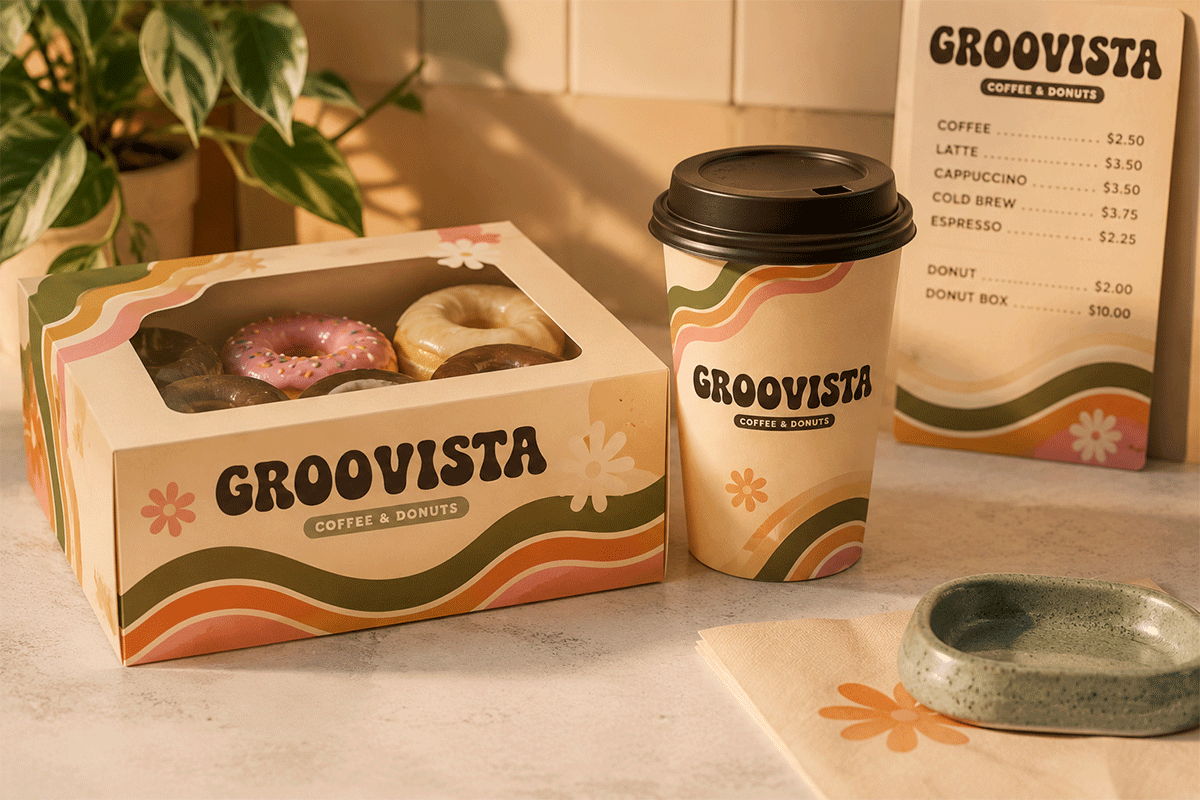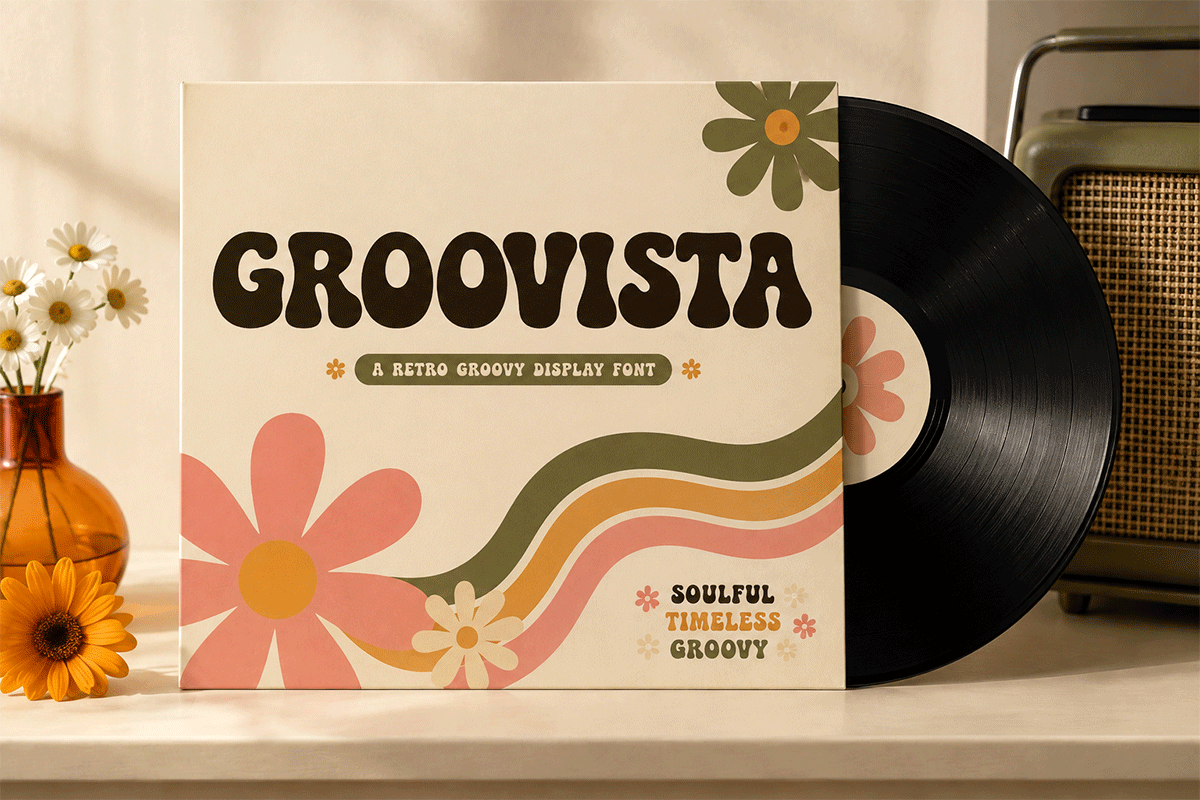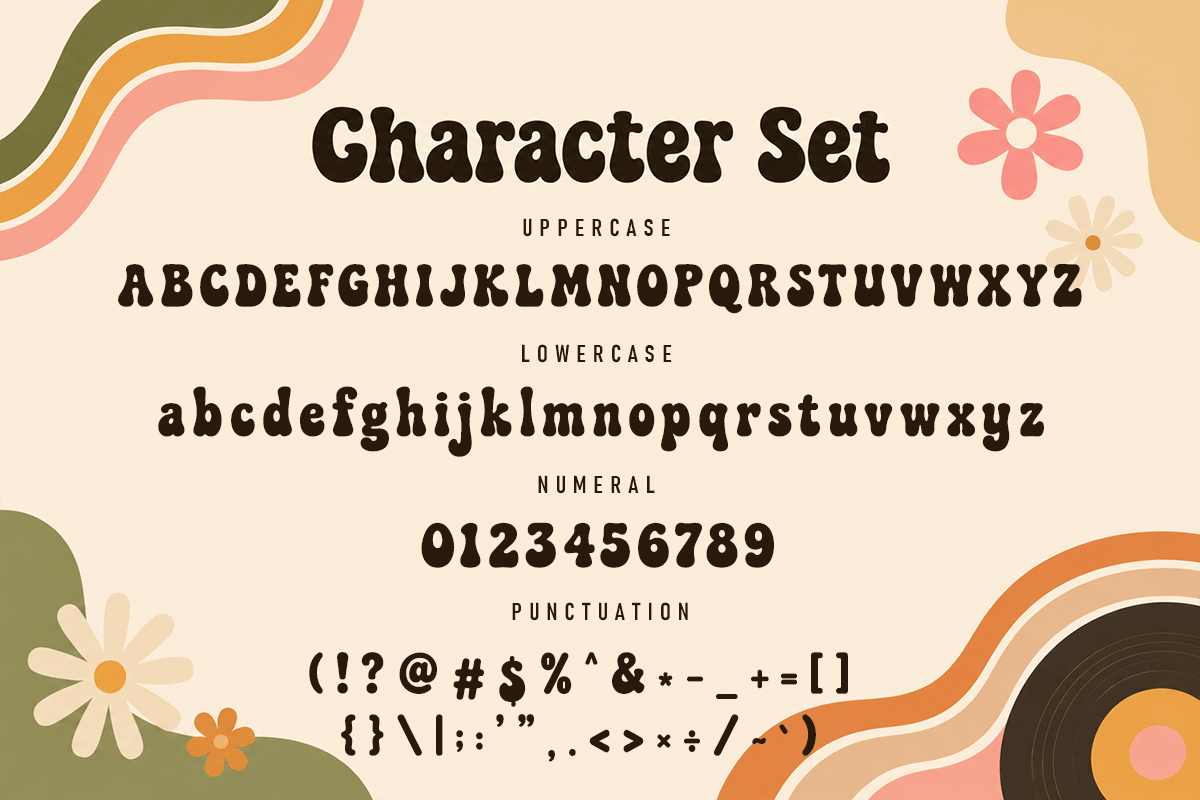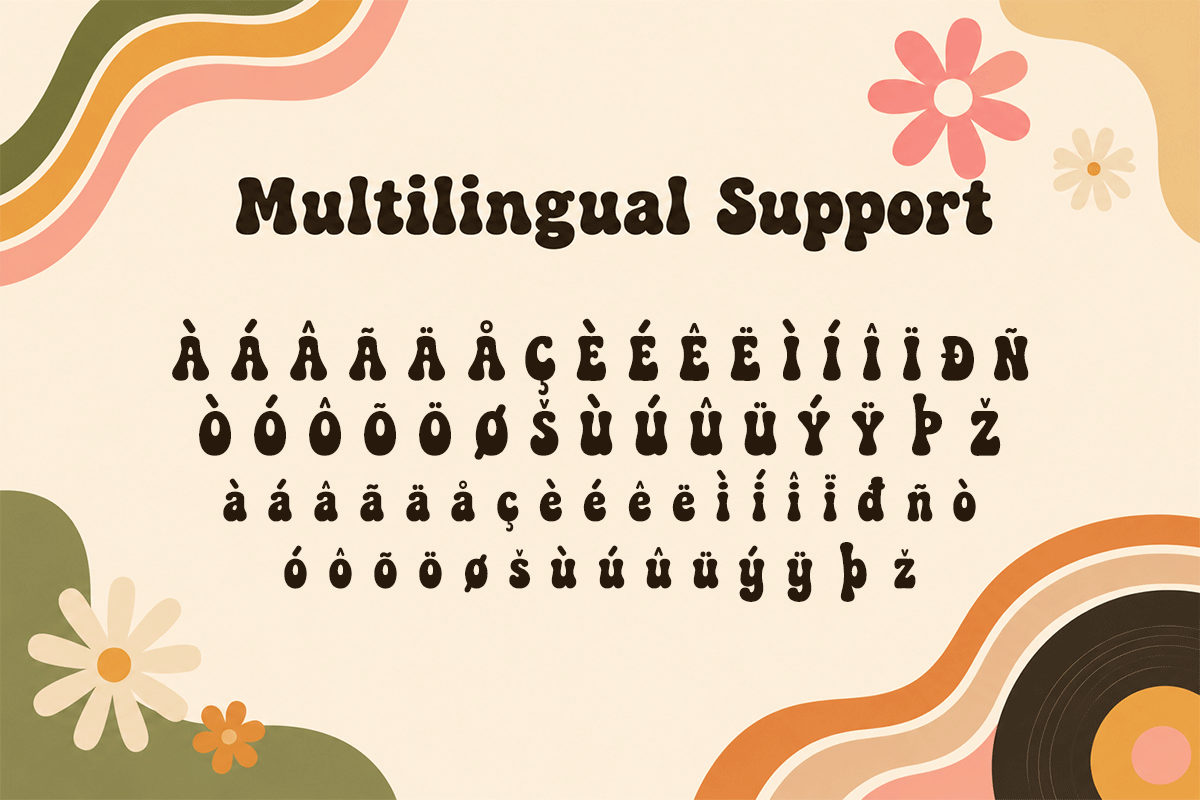
Groovista A Modern Groovy Display Font is a playful retro groovy display font inspired by the vibrant typography of the 1960s and 1970s. Featuring chunky letterforms, soft curves, and expressive vintage shapes, this font brings a fun and nostalgic personality to any creative project.
Its bold and funky style makes Groovista A Modern Groovy Display Font perfect for retro posters, music artwork, album covers, festival graphics, fashion branding, T-shirts, stickers, packaging, social media designs, logos, merchandise, and vintage-inspired advertising.
Groovista A Modern Groovy Display Font works especially well for large headlines and statement typography where its unique curves and groovy character can truly stand out. Pair it with warm vintage colors, floral illustrations, psychedelic graphics, or classic retro layouts to create an authentic throwback atmosphere.
A great choice for designers who want a typeface that feels fun, bold, nostalgic, funky, and full of personality.